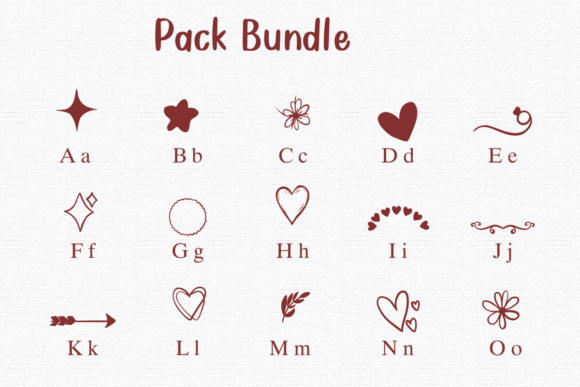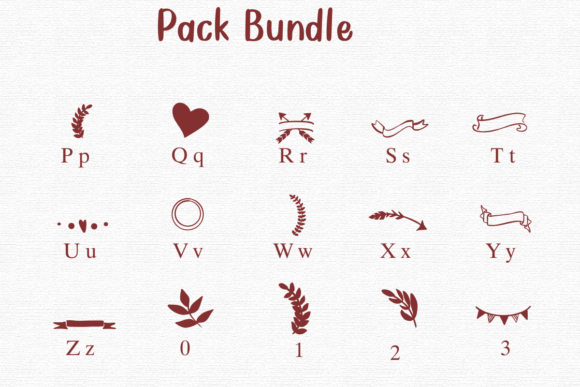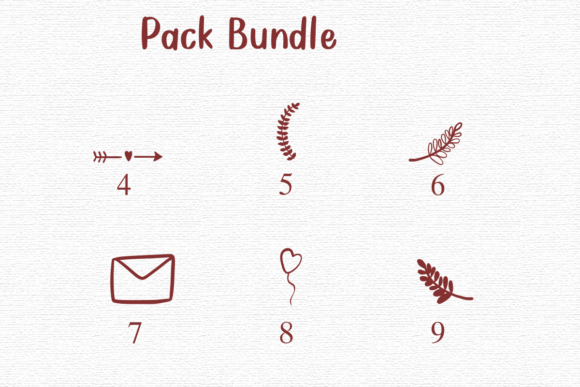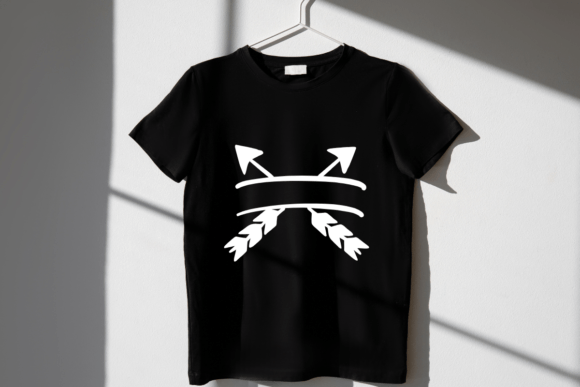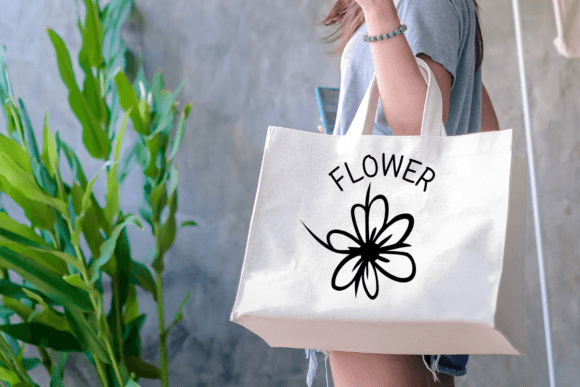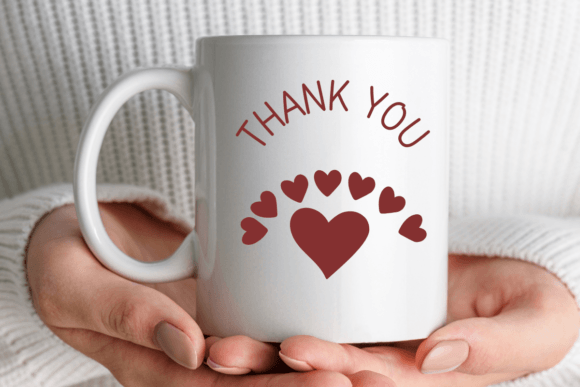
Introduction to Pack Bundle Font
Have you ever sat at your desk, staring at a blank page, trying to bring a creative project to life? You’ve got an idea, but the perfect visual element is missing. That’s where the Pack Bundle Font comes in – a high-quality, sketch-style dingbats font that can elevate your designs and make them truly stand out.
This versatile font is a treasure trove for designers, offering a wealth of creative possibilities for projects ranging from wedding invitations to DIY crafts and decorations. With its transparent background and free download availability, it’s an invaluable design resource that can help bring your ideas to life.
Whether you’re a seasoned pro or just starting out, the Pack Bundle Font is a valuable addition to your design toolkit, providing the perfect finishing touch for your creative projects and helping you to achieve a truly professional look.
Key Features of Pack Bundle Font
- High-quality font bundle with a wide range of designs, perfect for creative projects.
- Free download with transparent background, ideal for use in graphic design, web design, and digital art.
- Large collection of fonts, offering over 100 unique designs to enhance your design resource.
- Each font is carefully crafted with high-resolution graphics, ensuring crisp and clear display at 300 DPI resolution.
- Perfect for designers, artists, and creatives looking for a reliable design resource with a high-quality font bundle.
- Easy to use and customize, with a seamless integration into your design workflow.
Honest Review: Pack Bundle Font
I recently came across the Pack Bundle Font and I’m excited to share my thoughts on it. This free download is a great addition to any designer’s toolkit, offering a high quality design resource for creative projects.
What works well: ✨ The font is incredibly versatile, with a range of styles to suit any design need. From modern and sleek to classic and elegant, the Pack Bundle Font has got you covered. The transparent background is also a nice touch, making it easy to integrate into any design.
What doesn’t work well: ⚠️ One of the main limitations of the Pack Bundle Font is the limited character set. While it’s great for headings and titles, it may not be suitable for longer blocks of text. Additionally, the font may not be suitable for use in smaller sizes, as the details can get lost.
Overall, I’m impressed with the Pack Bundle Font. It’s a great free download for designers looking to add some flair to their creative projects. While it has some limitations, the font’s versatility and high quality make it a valuable design resource.
Key features:
- High quality design resource
- Range of styles to suit any design need
- Limited character set
Use the Pack Bundle Font to add a professional touch to your designs. Experiment with different font sizes and styles to create a unique and eye-catching design. The transparent background of the font makes it easy to use on any background image or color.
The Pack Bundle Font is perfect for any creative project that requires a high-quality design resource. Use it for logos, brochures, business cards, or any other design project that requires a professional touch.